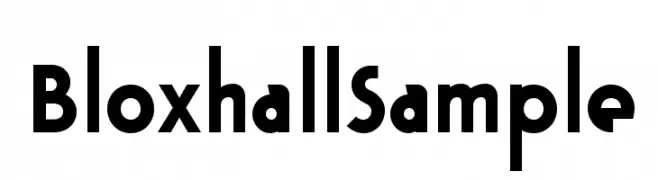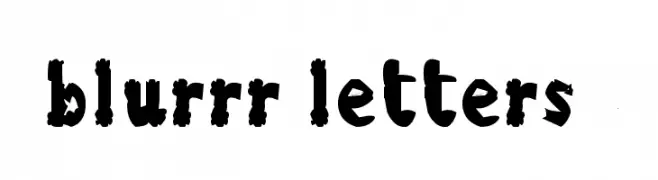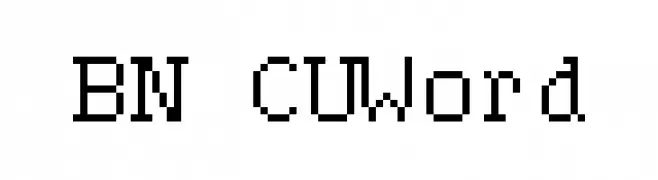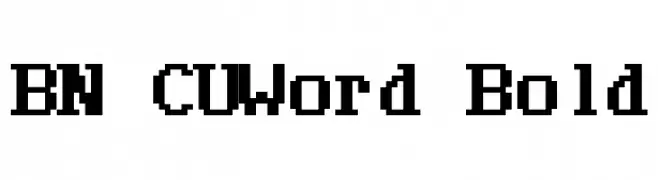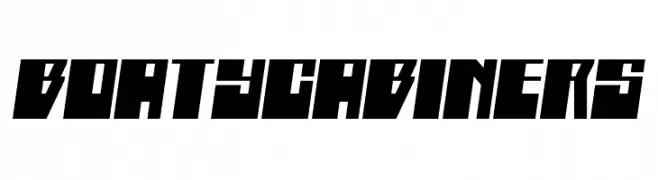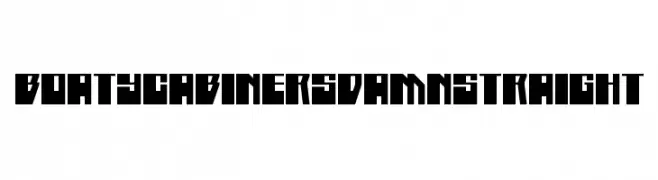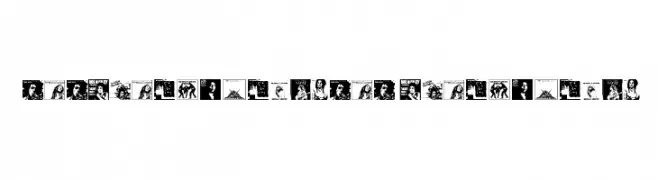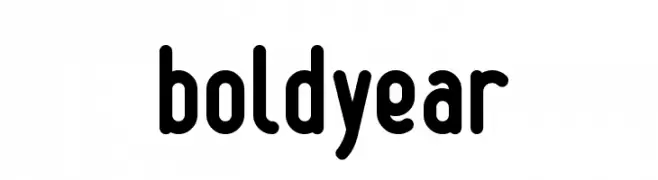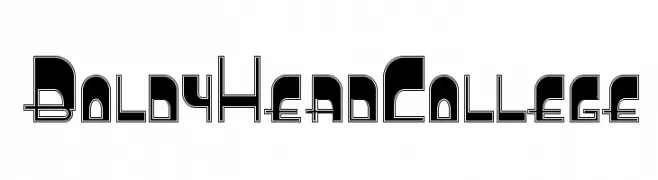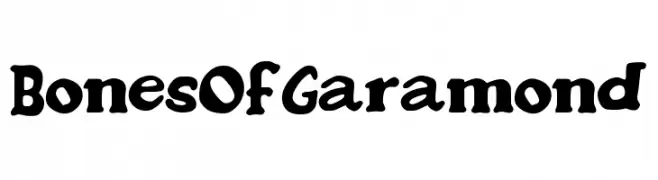
A bold, geometric font with a modern and cohesive design.
A bold, distressed font with a grungy, textured style.
A pixelated, monospaced font with a retro digital aesthetic.
A bold, pixelated font with a retro digital aesthetic.
A bold, angular font with a geometric and modern design.
A bold, geometric font with angular shapes and a strong, commanding presence.
The image is a collage of album covers, not a font.
A bold, rounded font with a modern and playful style.
A bold, geometric font with a college-inspired design and modern cut-out details.
A playful, hand-drawn font with bold, rounded characters and a whimsical style.